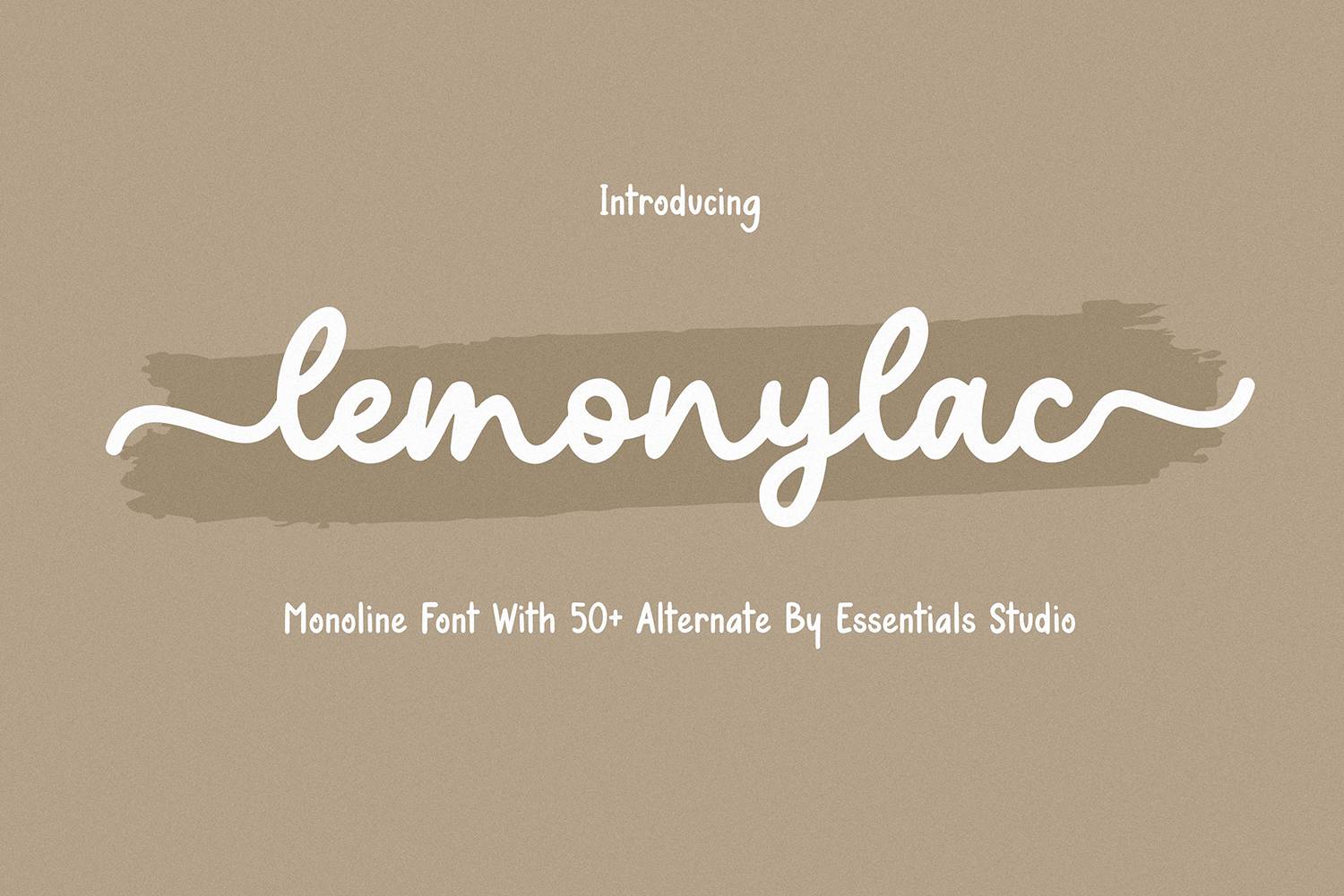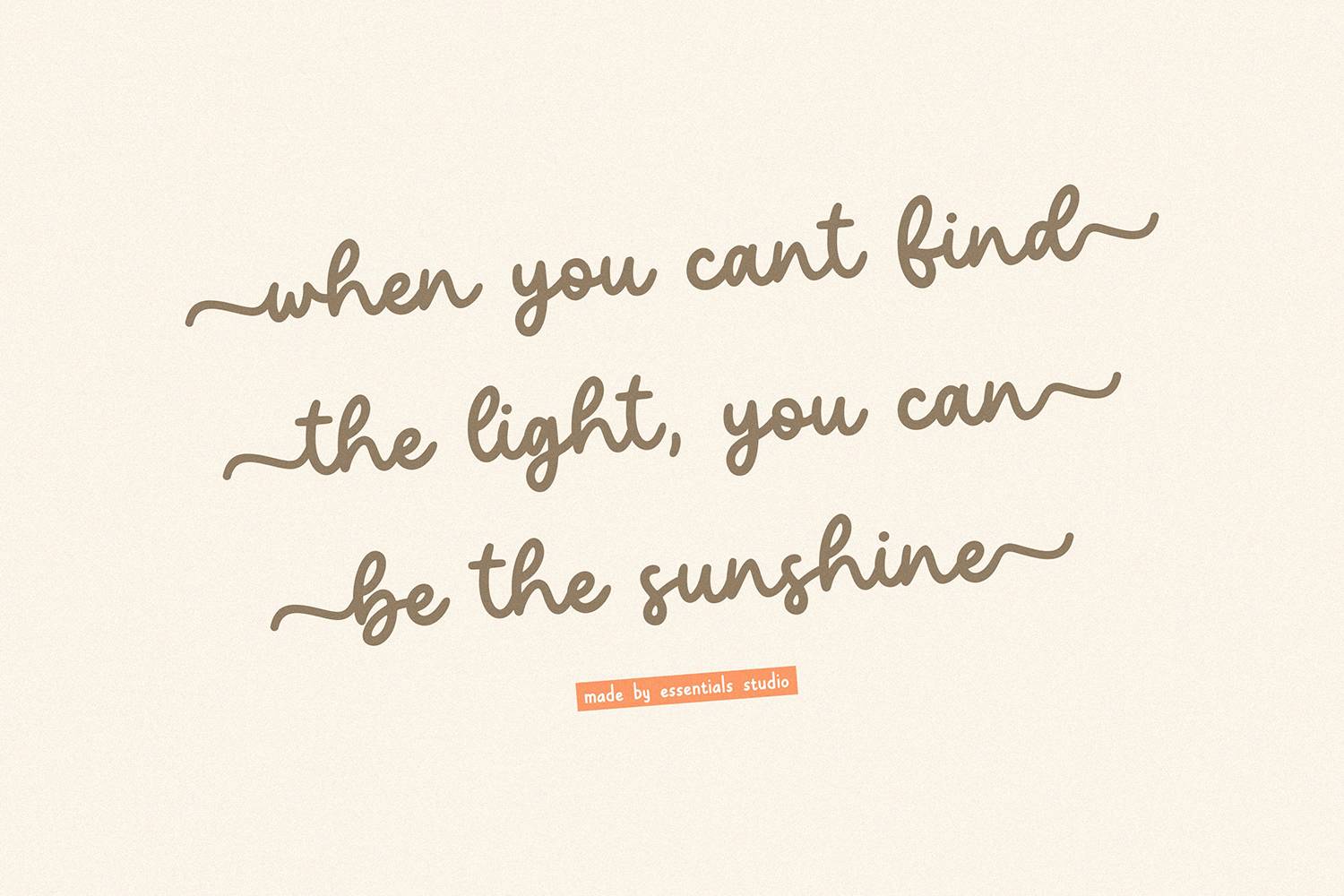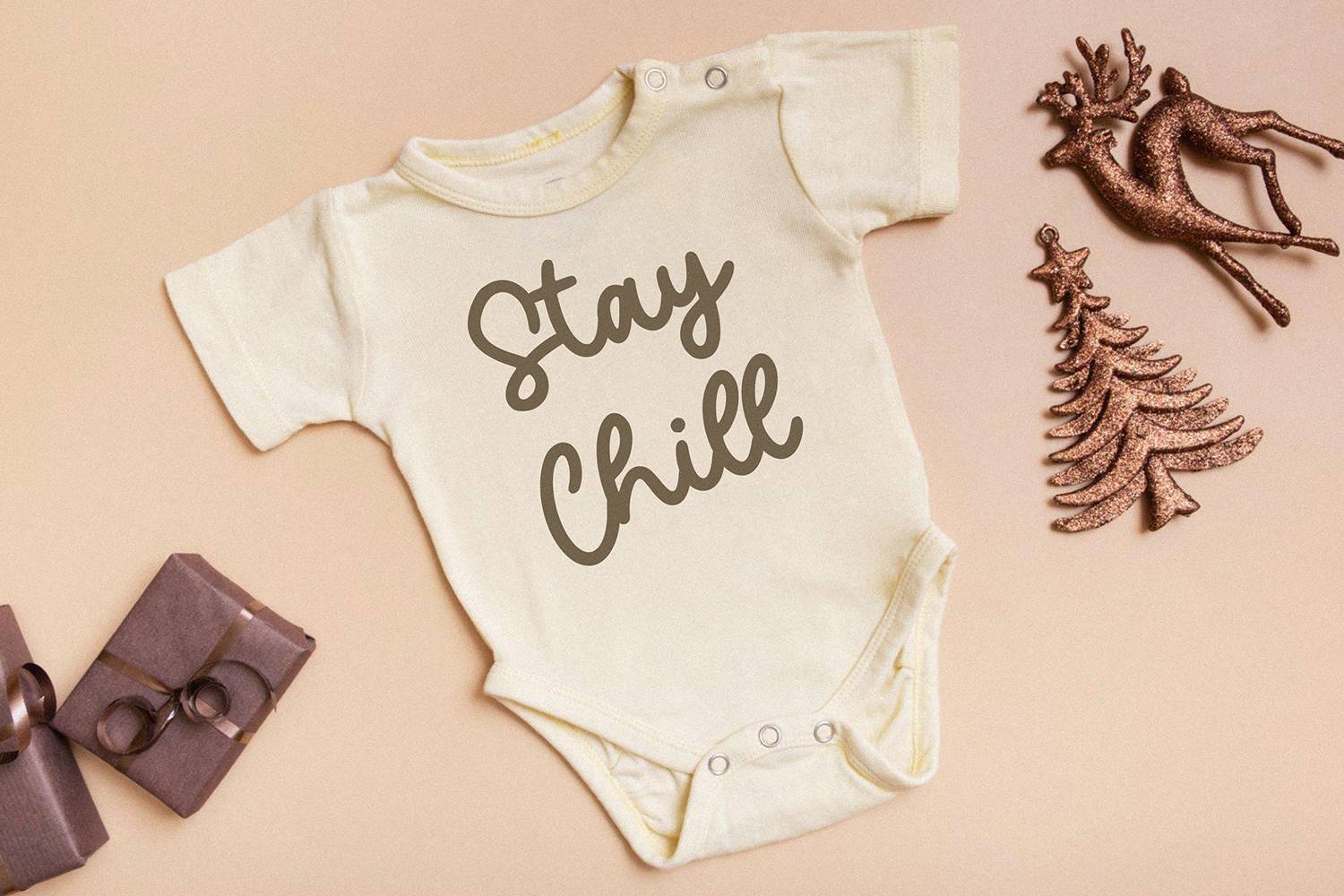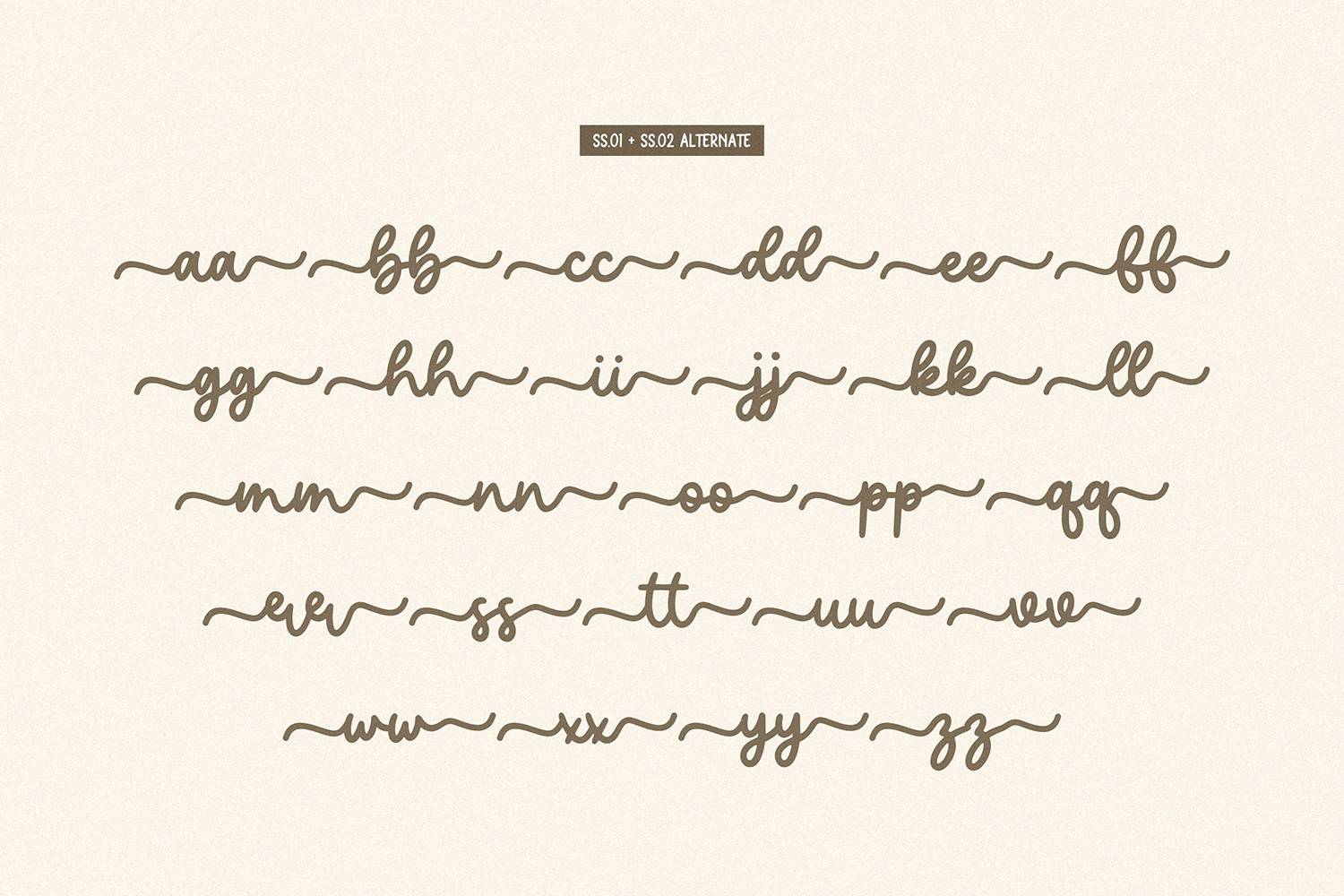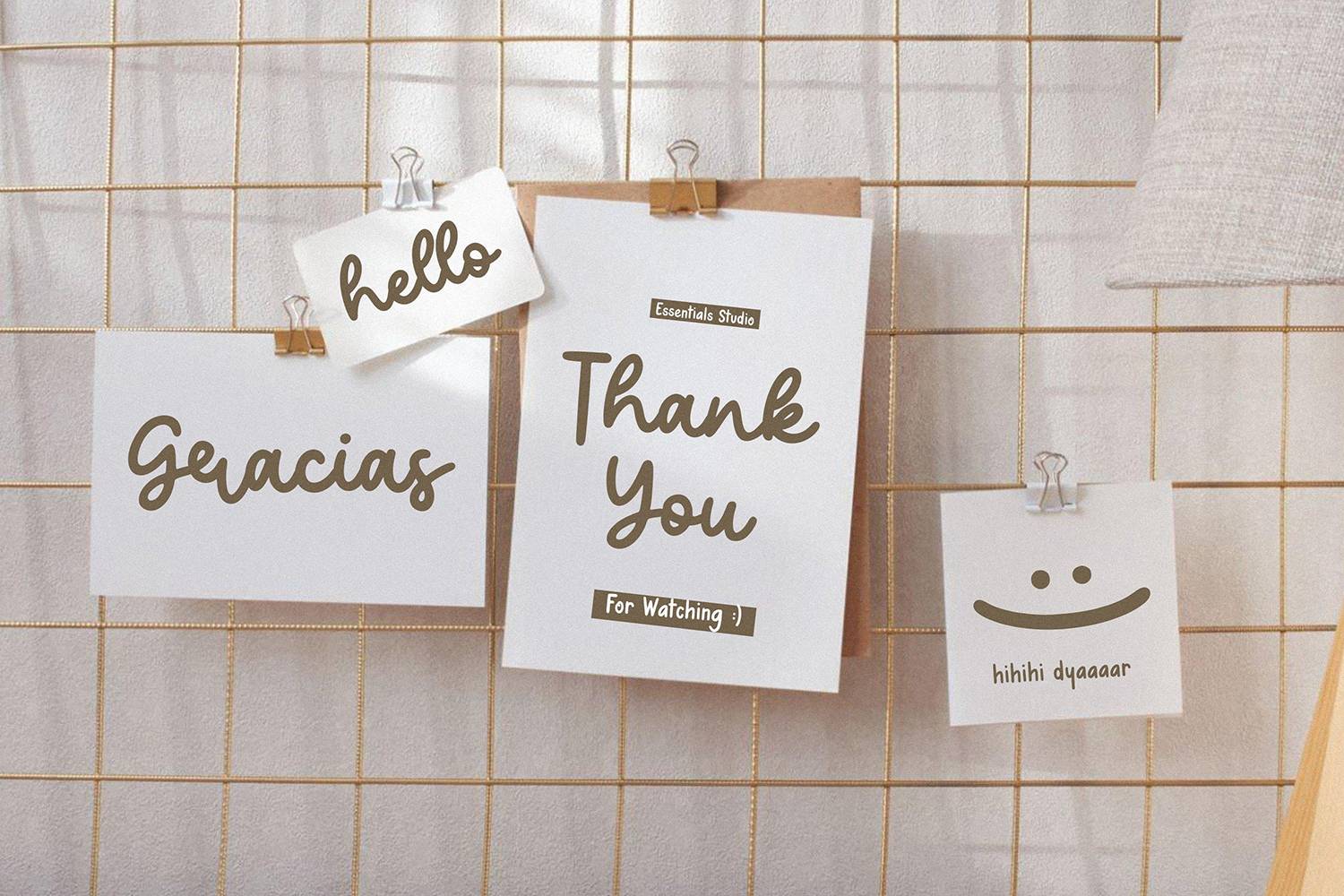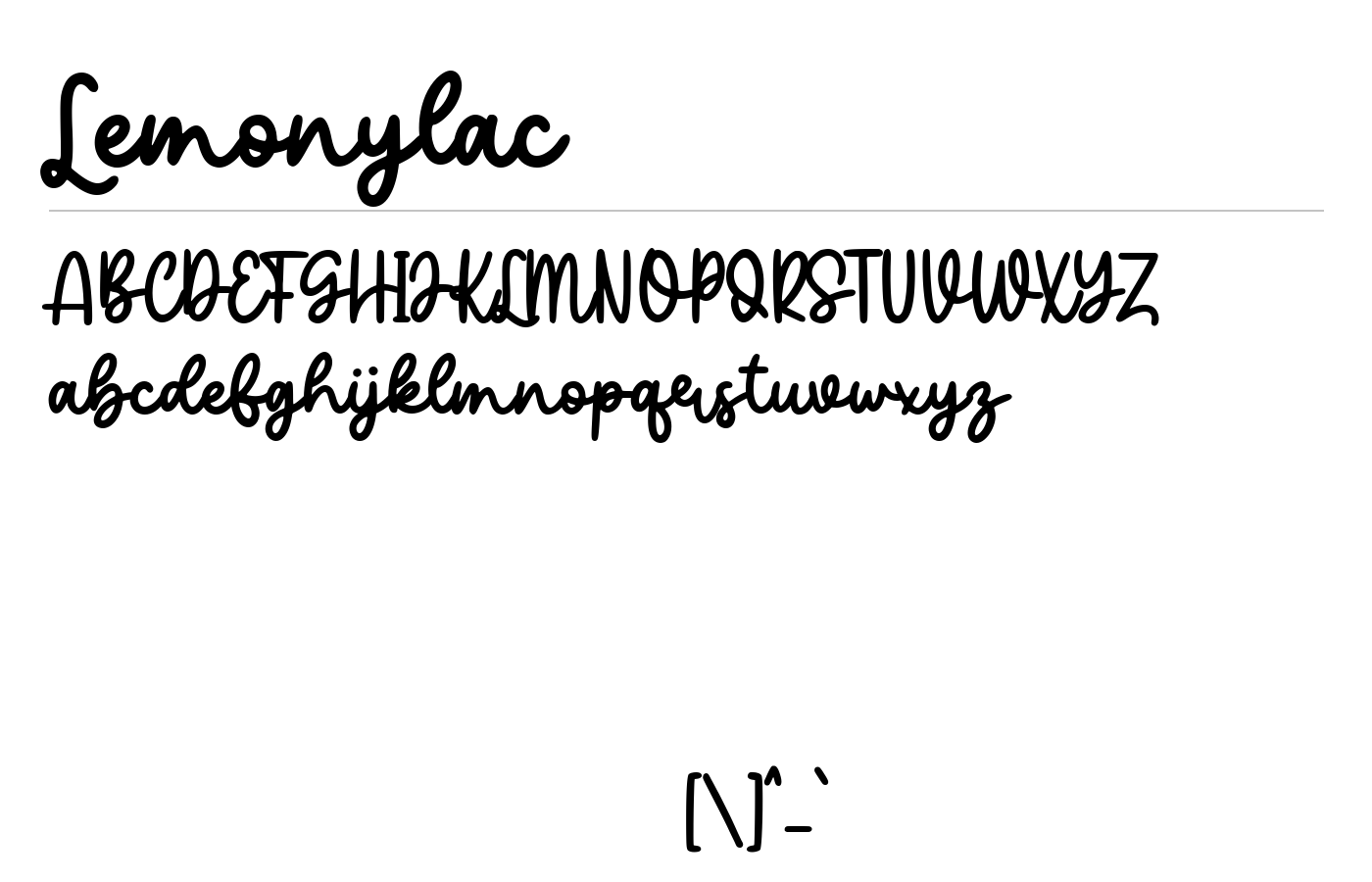
Lemonylac is a playful and casual script font with a handwritten feel, featuring smooth, rounded strokes and moderate weight that makes it friendly and approachable. Its consistent and slightly condensed letterforms, along with charming double-story characters and lively curves, work perfectly for branding, invitations, and creative projects that want to convey warmth and personality. This font shines in contexts where a personal, informal touch is desired, adding a fun and inviting vibe without sacrificing readability.
Lemonylac Font
About Lemonylac Font
| Designer | Annas Rifky Anhar |